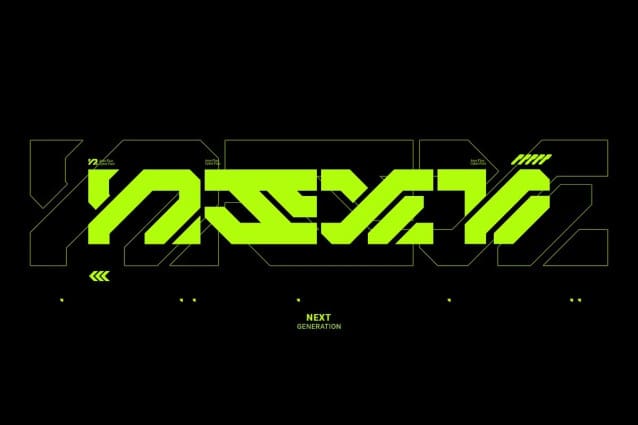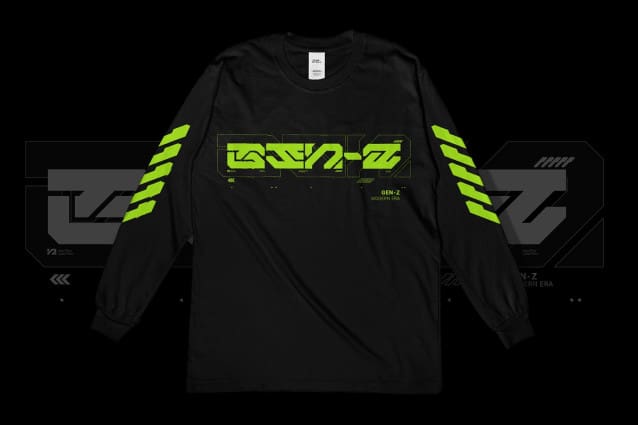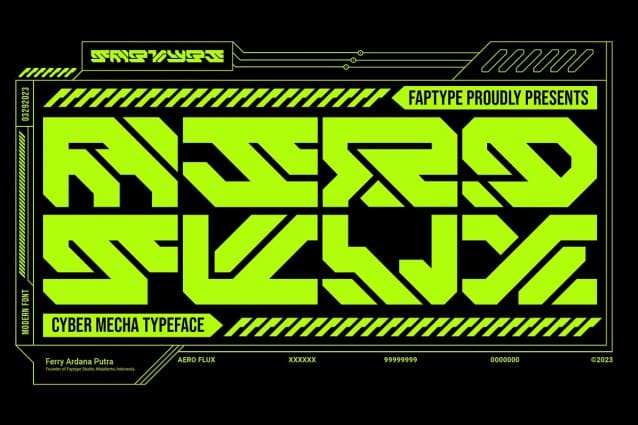
Aero Flux Font
Aero Flux Font, the cyber mecha font that will take your designs to the next level. This font is designed with a perfect blend of modern and squared feel, giving it a unique and futuristic aesthetic that is perfect for a wide range of applications.
The bold and sleek design of Aero Flux makes it an ideal choice for logos, headlines, and branding materials. It’s all-caps design with punctuation, numerals, and foreign support allows for flexibility in creating unique and engaging visual designs.
Aero Flux‘s squared feel makes it perfect for projects that require a strong and sturdy look, such as designing video game or movie titles, product packaging, or creating futuristic posters.
This font’s bold, industrial look is perfect for capturing the essence of the mecha genre, with its sharp angles and futuristic design. The squared feel of Aero Flux adds a sense of strength and solidity to your designs, making it the perfect choice for projects that require a bold, commanding look.
Moreover, Aero Flux‘s industrial, mecha-modern design makes it the perfect font for creating digital interfaces and user interfaces (UIs), especially those that require a futuristic or high-tech feel.
In summary, Aero Flux is a highly versatile font that is perfect for a wide range of applications, from logos and branding to digital interfaces and futuristic posters. With its modern, squared feel and unique design, it is the perfect font to add a touch of futurism to your projects and captivate your audience.